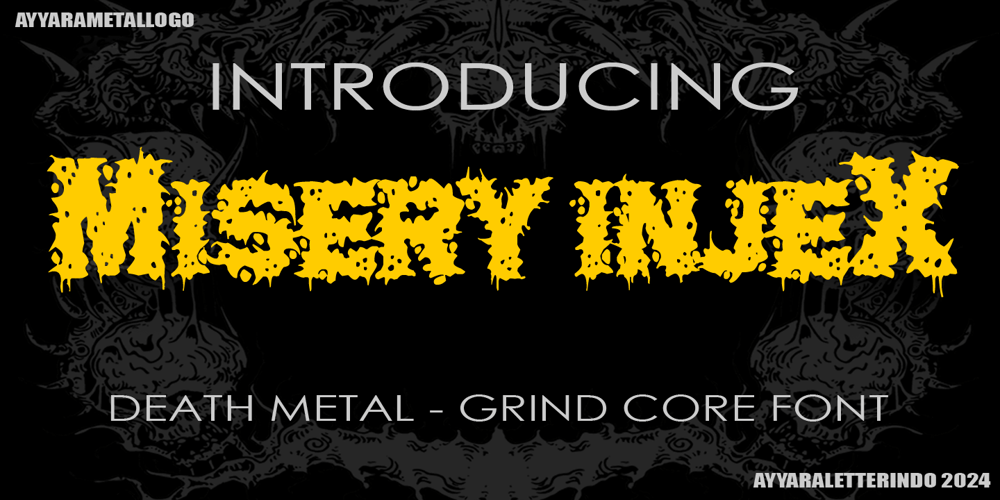
Misery Injex
Misery Injex font
Misery Injex Font Family was designed by published by Ayyara Letterindo. Misery Injex contains 1 styles and family package options. Misery Injex font is a Death Grind – Death metal font, this font that you can be used for band logos, band tittles, backprint of your bands, Tshirt design, hoodie, band flyer, band poster promotion, or horror movie, you can immediately make with the help of this font.Misery Injex font is influenced from my favorite death grind band from USA, so if your band or design have a the same atmosphere, you should be use this font and also make your design is amazing with ease and fast.